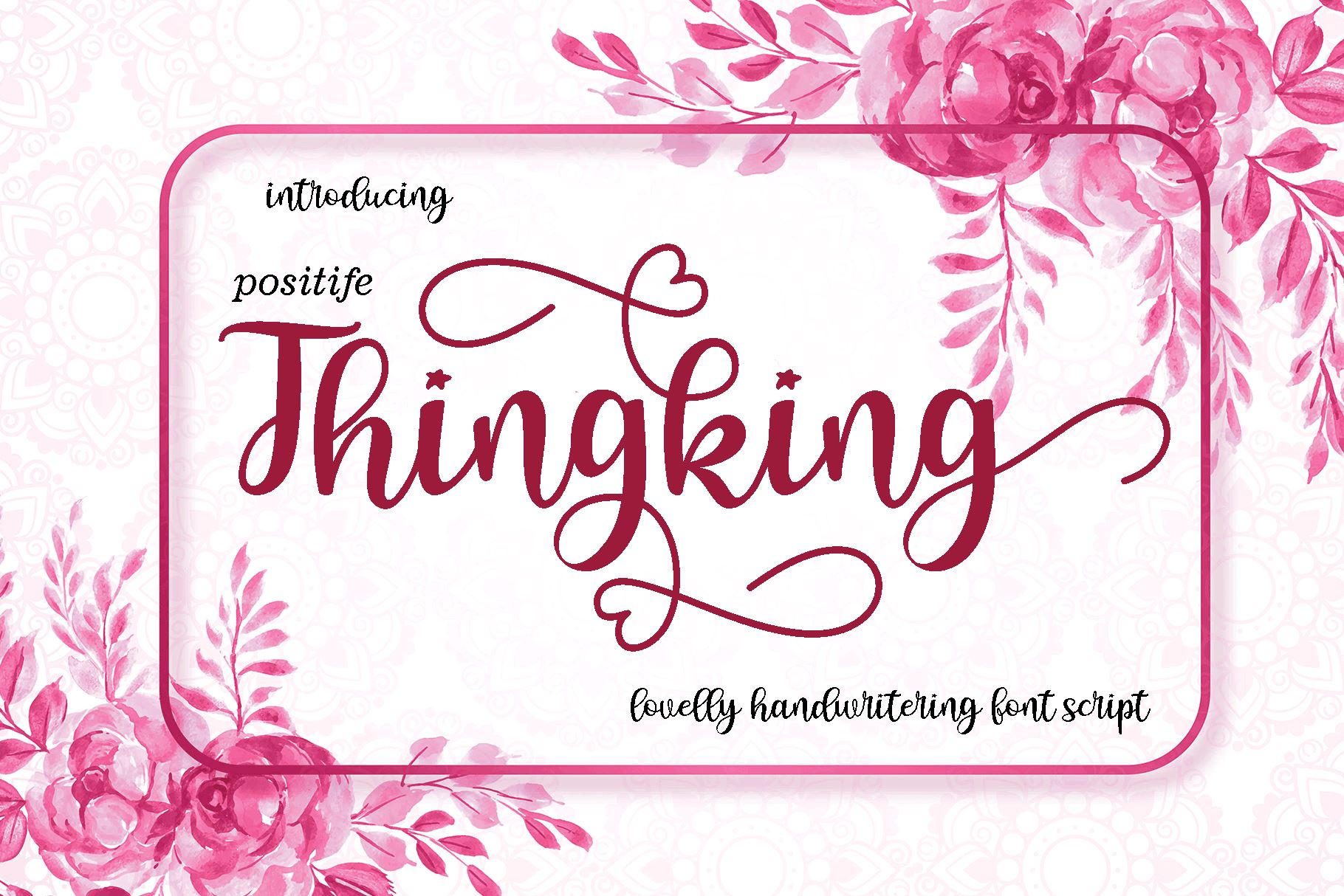
About Thingking Script
Thingking Modern Calligraphy. This font was designed by handwriting, and it has a modern and unique forms of calligraphy, the writing style is very natural. The Features of this fonts is; Standart ligatures Stylistic Alternates Contextual Alternates Stylistic sets File font Thingking Include; Thingking OTF Thingking TTF Thingking  font Web Thingking PUA Unicode (Private Use Areas) Programs that support in this font is a Photo Shop, Adobe Illustrator, Adobe Indesign, Corel Draw and Microsoft Office. Can be used for various purposes.such as headings, logos, wedding invitation, t-shirt, letterhead, signage, lable, news, posters, badges etc. To enable the OpenType Stylistic alternates, you need a program that supports OpenType features such as Adobe Illustrator CS, Adobe Indesign & CorelDraw X6-X7.